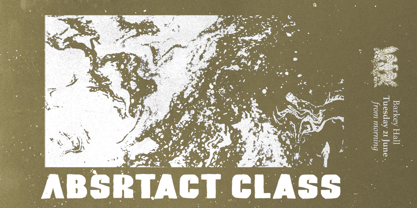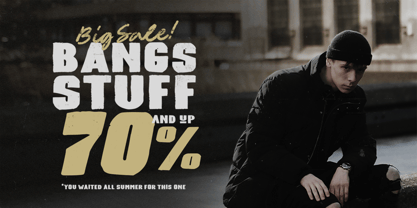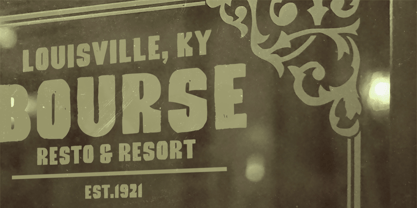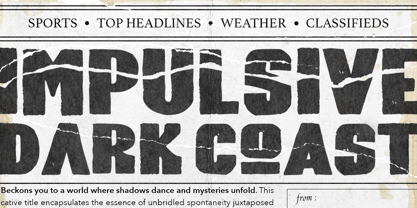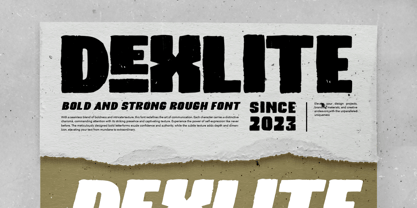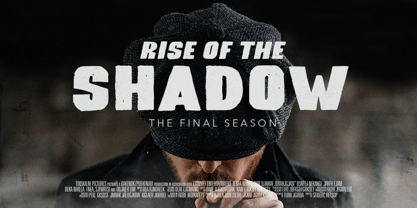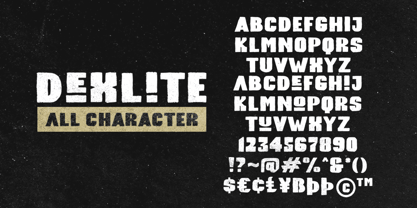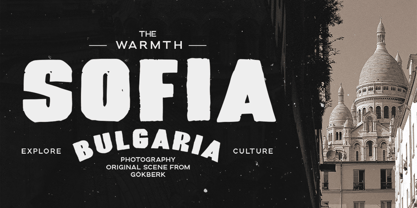
Dexlite
by Bale Type
The Dexlite Font Family was designed by Sarid Ezra, Dzikrul Aulia and published by Bale Type. Dexlite contains 2 styles and family package options. More about this family
Dexlite is a bold and strong font with textured and rough shape. This font is very suitable for vintage poster that need handmade and rough looks. With strong looks, Dexlite will make your project looks stand out. This font also support multi language!